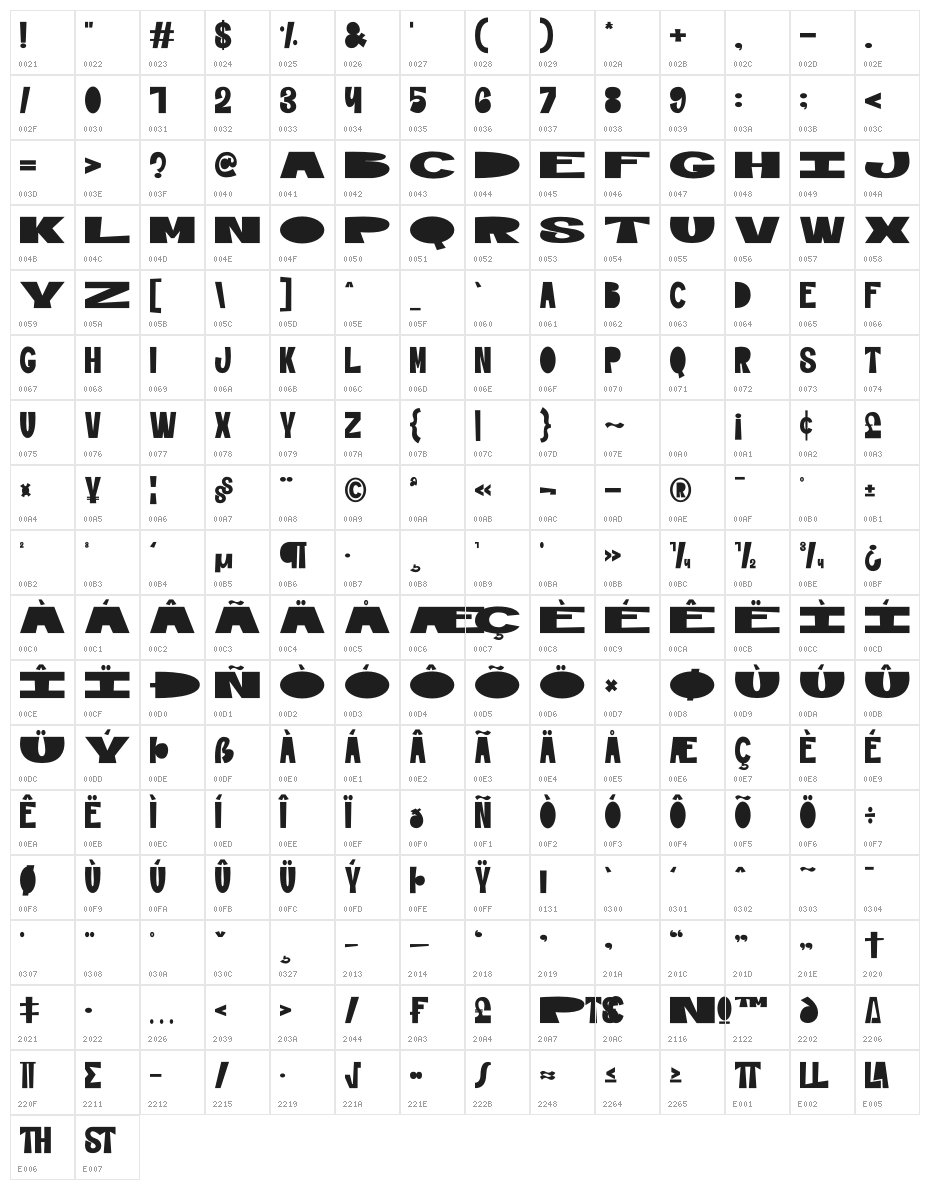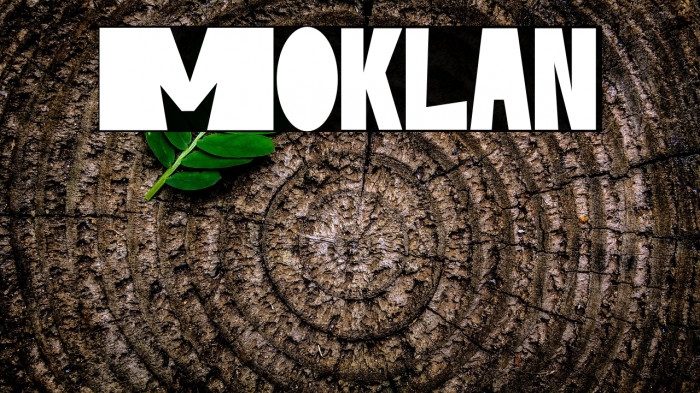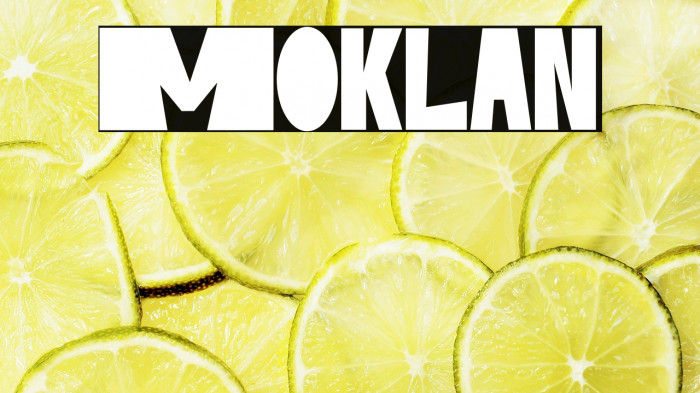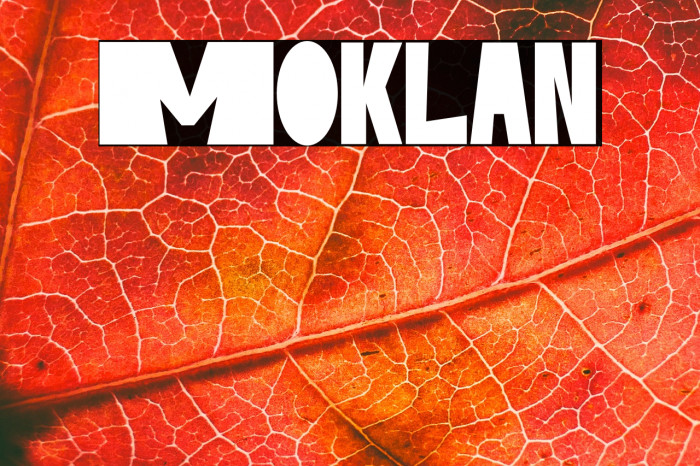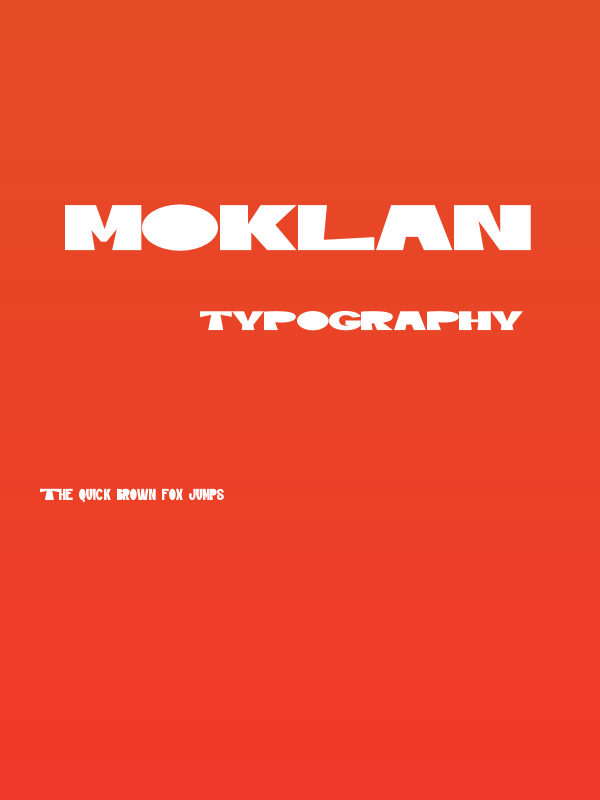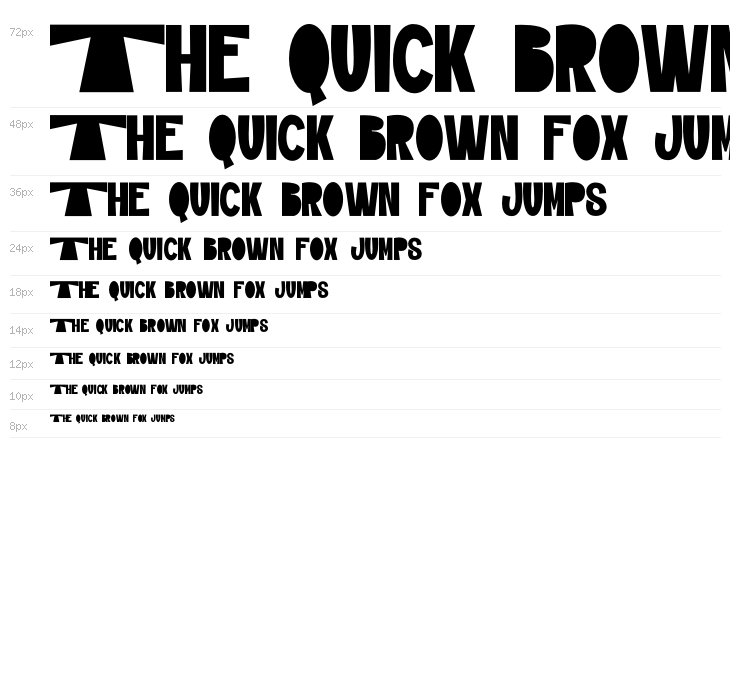
Moklan Font
Moklan Description
This font is a bold and striking display typeface characterized by its thick, heavy strokes and unique, playful shapes. The uppercase letters are wide and imposing, with a slightly condensed appearance that gives them a strong presence. The lowercase letters maintain the same boldness, ensuring consistency throughout the typeface. The numbers and special characters are equally bold and well-integrated, making them suitable for attention-grabbing designs. The font's style is reminiscent of retro and vintage aesthetics, with a modern twist that makes it versatile for various creative projects.
| Width | Condensed |
| Overall Style | Retro, Modern |
| Use Case | Headlines, Posters, Branding |
| Proposed Projects | Ideal for posters, headlines, branding, and any project requiring a bold, eye-catching typeface. |